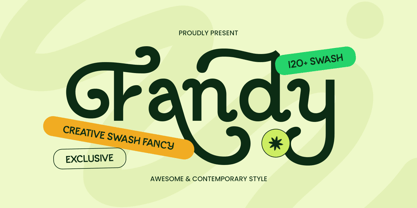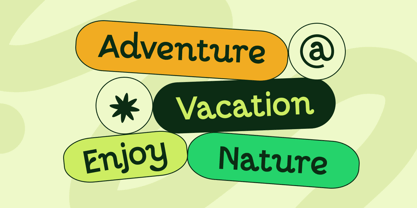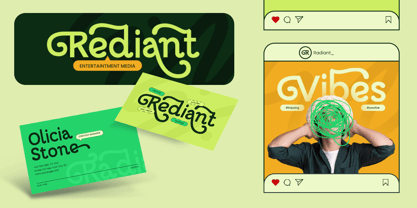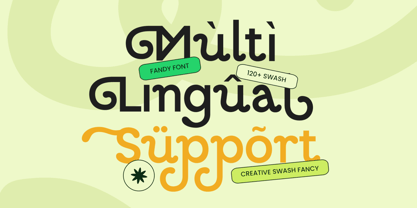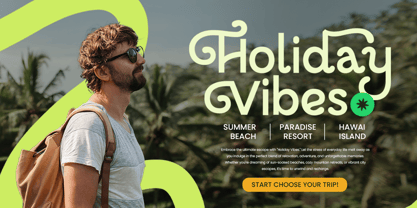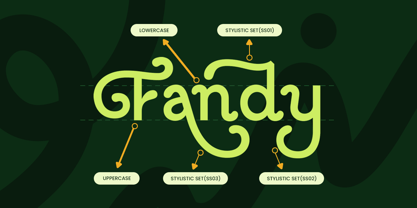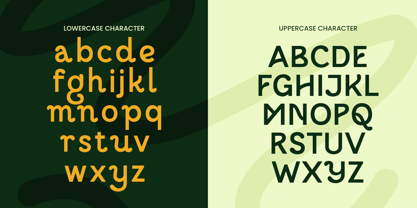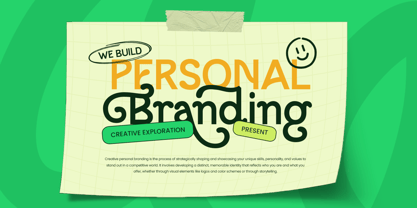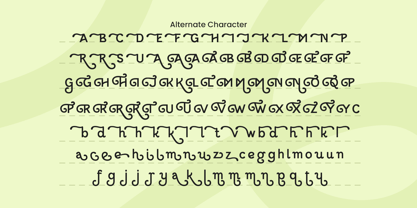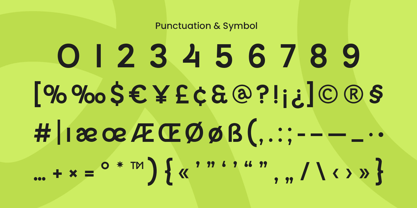
Fandy is a creative swash fancy font designed to add energy, elegance, and a playful twist to your designs. With its flowing swashes and artistic letterforms, Fandy is perfect for logos, branding, packaging, posters, and stylish social media graphics.
This font brings a bold personality while maintaining an elegant charm, making it a versatile choice for both casual and high-end projects. Whether you’re crafting a modern boutique logo or a lively event poster, Fandy helps your message stand out with flair.
Infuse your designs with creativity and movement using Fandy — where every curve tells a story of style.
Fandy – Creative Swash Fancy Features
Stylish swash and decorative flourishes
Ideal for creative branding, logos, and headlines
Punctuation, numbers, and symbols included
Uppercase and lowercase letters
OpenType features for dynamic alternates
Multilingual support for
Afrikaans, Albanian, Asu, Basque, Bemba, Bena, Breton, Chiga, Cornish, Dutch, English, Estonian, Filipino, Finnish, Friulian, Galician, German, Gusii, Indonesian, Irish, Italian, Kabuverdianu, Kalenjin, Kinyarwanda, Luo, Luxembourgish, Luyia, Machame, Makhuwa-Meetto, Makonde, Malagasy, Manx, Morisyen, North Ndebele, Nyankole, Oromo, Portuguese, Quechua, Romansh, Rombo, Rundi, Rwa, Samburu, Sango, Sangu, Scottish Gaelic, Sena, Shambala, Shona, Soga, Somali, Spanish, Swahili, Swedish, Swiss, and more.
Unleash bold creativity with Fandy — your stylish partner for fancy, fun, and fabulous designs.